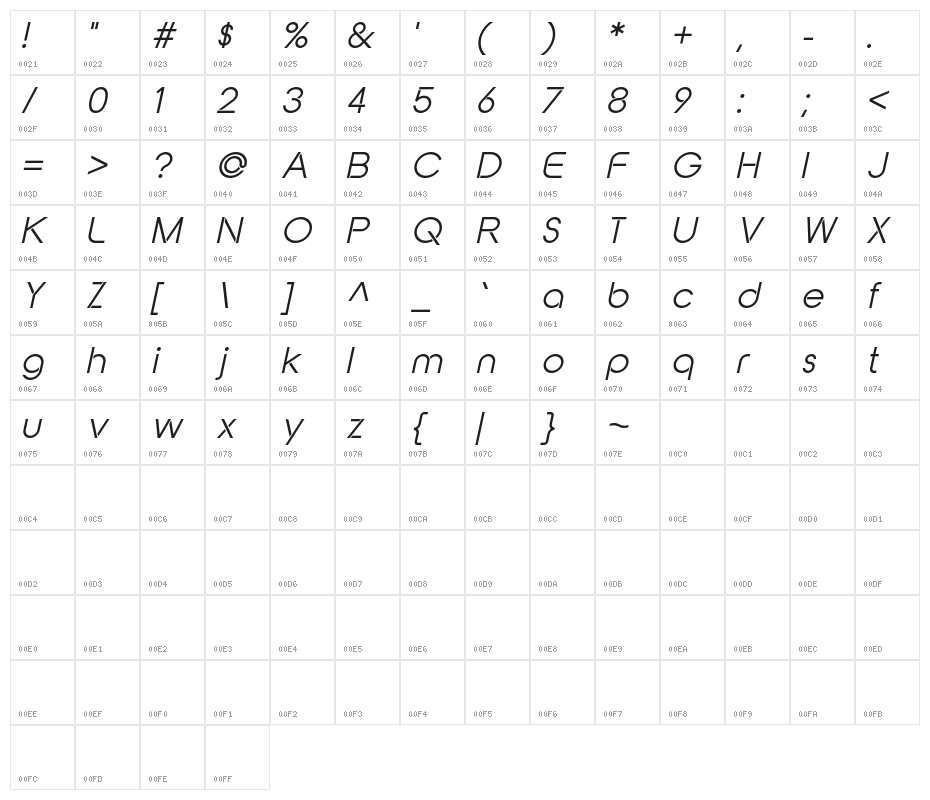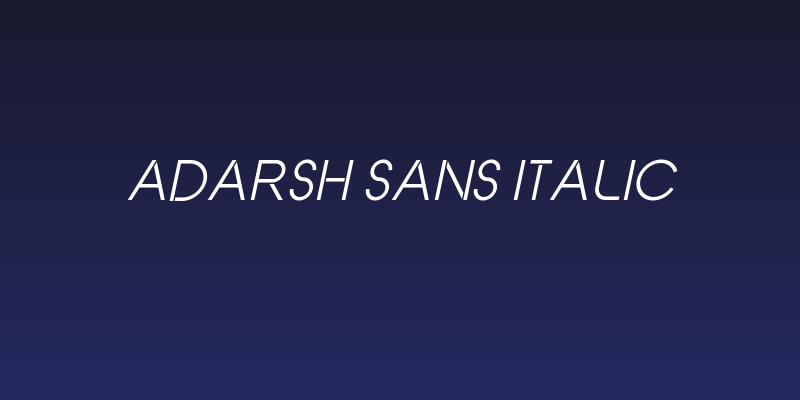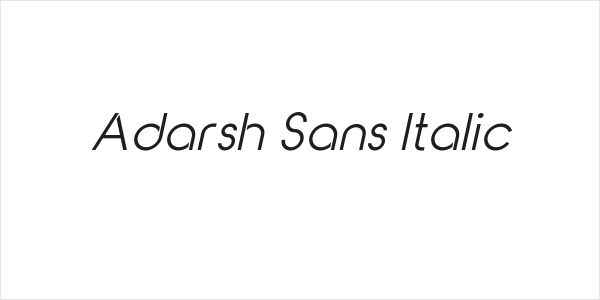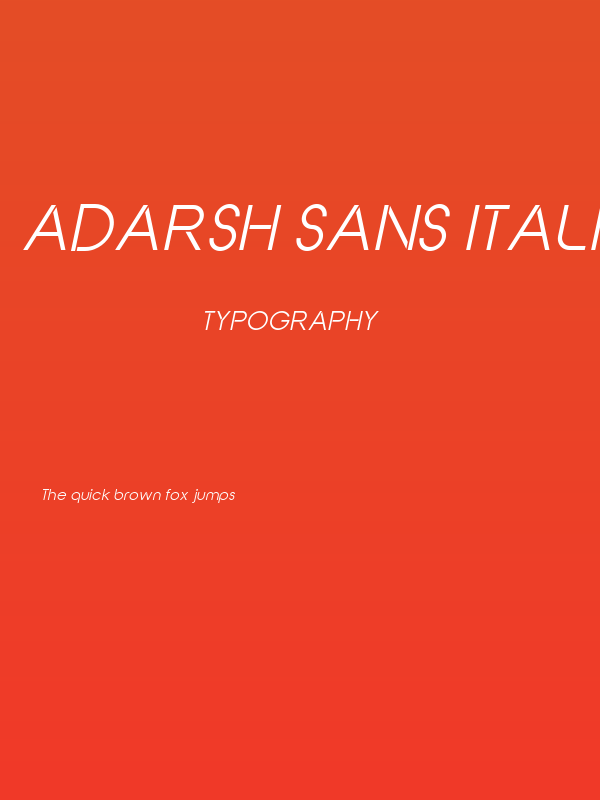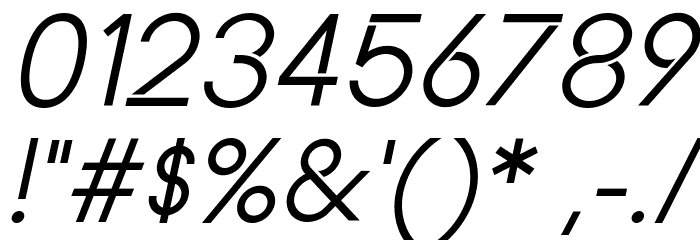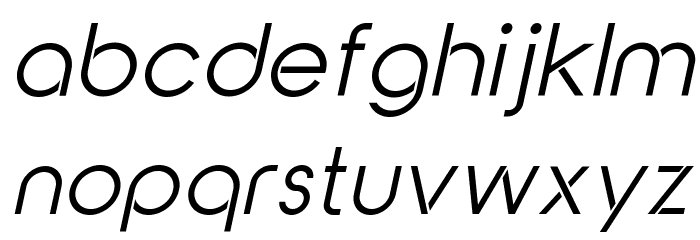
Adarsh Sans Italic Font
This font features a sleek and modern design with a clean, sans-serif style. The italicized form adds a dynamic and forward-leaning appearance, enhancing its contemporary feel. Each character is crafted with precision, showcasing smooth curves and consistent line thickness. The uppercase letters are slightly taller than the lowercase, maintaining a harmonious balance. The numerals are clear and legible, making them suitable for various applications. Special characters are well-integrated, ensuring versatility in design projects. The overall aesthetic is minimalistic yet stylish, making it ideal for modern branding and digital interfaces.
| Proposed Projects | Ideal for modern branding, digital interfaces, advertising, and editorial design. |